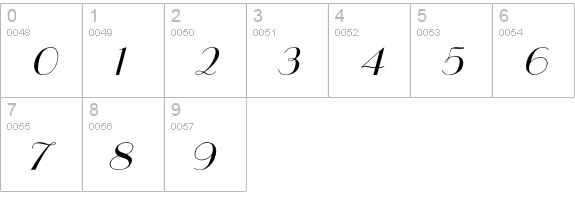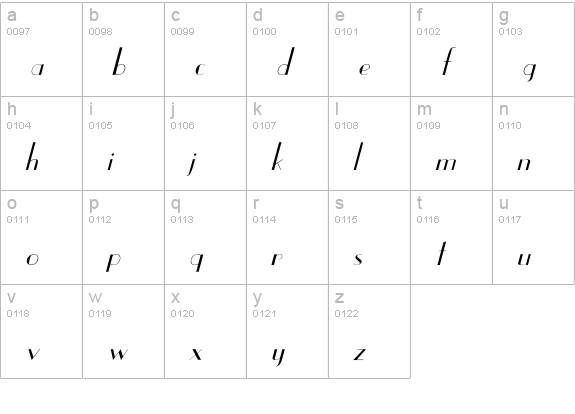
UppEa Italic is a distinctive, italic variant in the UppEa typeface family \xE2\x80\x94 well suited to design and typography projects.
Introducing UppEa Italic font, a visually stunning typeface that effortlessly blends elegance and modernity. This exquisite font is perfect for adding a touch of sophistication to any project, whether it be a logo, branding materials, or a stylish website. UppEa Italic boasts a unique and captivating design that will instantly grab attention. Its sleek and fluid letterforms exude confidence and creativity, making it an excellent choice for professional designers, creatives, and enthusiasts alike. What sets UppEa Italic font apart is not only its impeccable aesthetics but also its versatility. It effortlessly adapts to various design styles and contexts, allowing you to experiment and create visually striking compositions effortlessly. But perhaps the most appealing aspect of UppEa Italic font is that it is freely available to download at FontsMarket.com. This means that you can access this exceptional font without any cost, making it a fantastic option for both personal and commercial projects. Whether you're working on a high-end fashion campaign, a sleek magazine layout, or a minimalist website, UppEa Italic font will elevate your designs to new heights. Its clean lines, delicate curves, and subtle italics will add a touch of refinement and sophistication to your work, leaving a lasting impression on your audience. Download UppEa Italic font for free today at FontsMarket.com and let your creativity soar with this remarkable typeface. Don't miss out on the opportunity to enhance your designs with this stunning and freely accessible font.